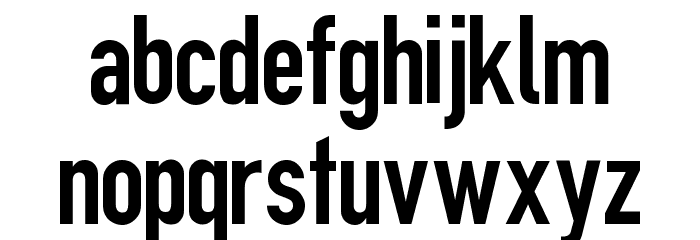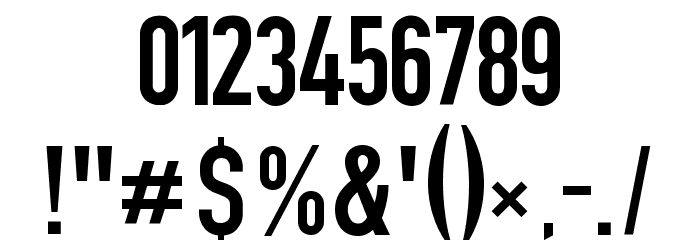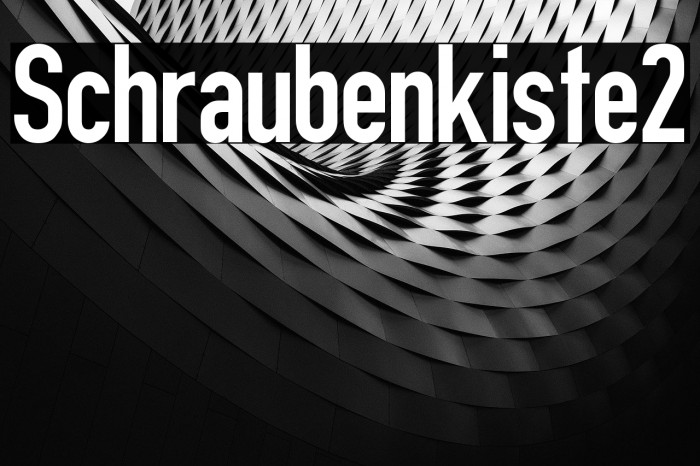
Schraubenkiste2 Font
This typeface features a bold and modern design with clean, straight lines and uniform stroke widths. The uppercase letters are tall and commanding, while the lowercase letters maintain a consistent height, creating a cohesive look. The numerals are clear and legible, matching the overall boldness of the alphabet. Special characters are well-integrated, maintaining the same weight and style as the alphanumeric characters. The font's geometric structure and lack of serifs give it a contemporary feel, making it suitable for a variety of digital and print applications. Its strong presence and clarity make it ideal for attention-grabbing headlines and impactful designs.
A bold, modern sans-serif typeface with clean lines and uniform stroke widths.